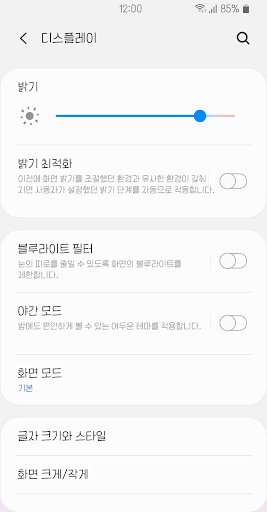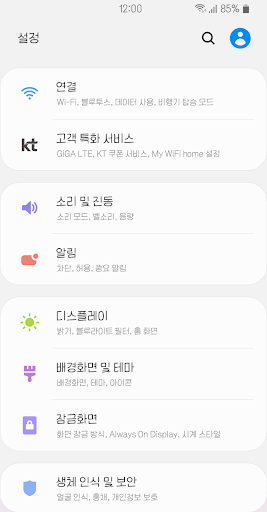
CatGothicNo2
CatFont that delivers happiness^^
It's a legible Gothic italic typeface with a blue coolness.It's the second series following Catgodic's first.
It's not hard gothic, it's soft, pretty gothic, like a cute cat.
It's an unusual style with a slight tilt to the left.
The design is very different from the first one.
It's similar to the cat's cute feeling in the "ㅇ,ㅎ" shape.
Catgodic's first was the shape of a mask square.
The second one is a full square.
But it's a little thin.
It gives you a sense of space, so you don't feel stuffy.